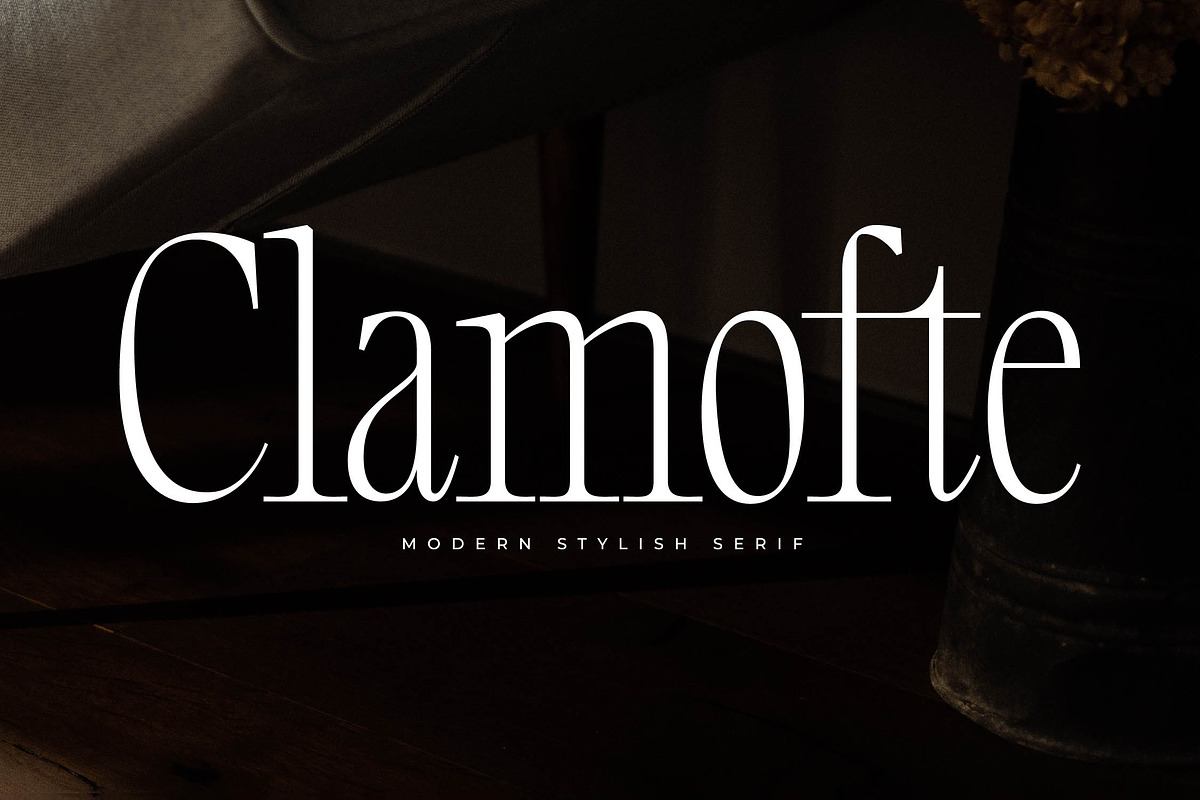
Clamofte Modern Stylish Serif Free Download
Clamofte Modern Stylish Serif Font Free Download
Introducing Clamofte Modern Stylish Serif Font Free Download, a luxury serif typeface designed by Letterena Studios. This font exudes elegance and sophistication, making it suitable for various projects such as logos, branding, homeware designs, product packaging, mugs, quotes, posters, shopping bags, t-shirts, book covers, name cards, invitation cards, greeting cards, labels, photography, watermarks, and special events. Its modern and stylish design adds a touch of luxury to any creative endeavor. Download Clamofte Modern Stylish Serif Font Free Download to explore its features in personal projects. For commercial use, please ensure you purchase the appropriate license. Elevate your designs with the refined aesthetics of Clamofte Modern Stylish Serif Font Free Download